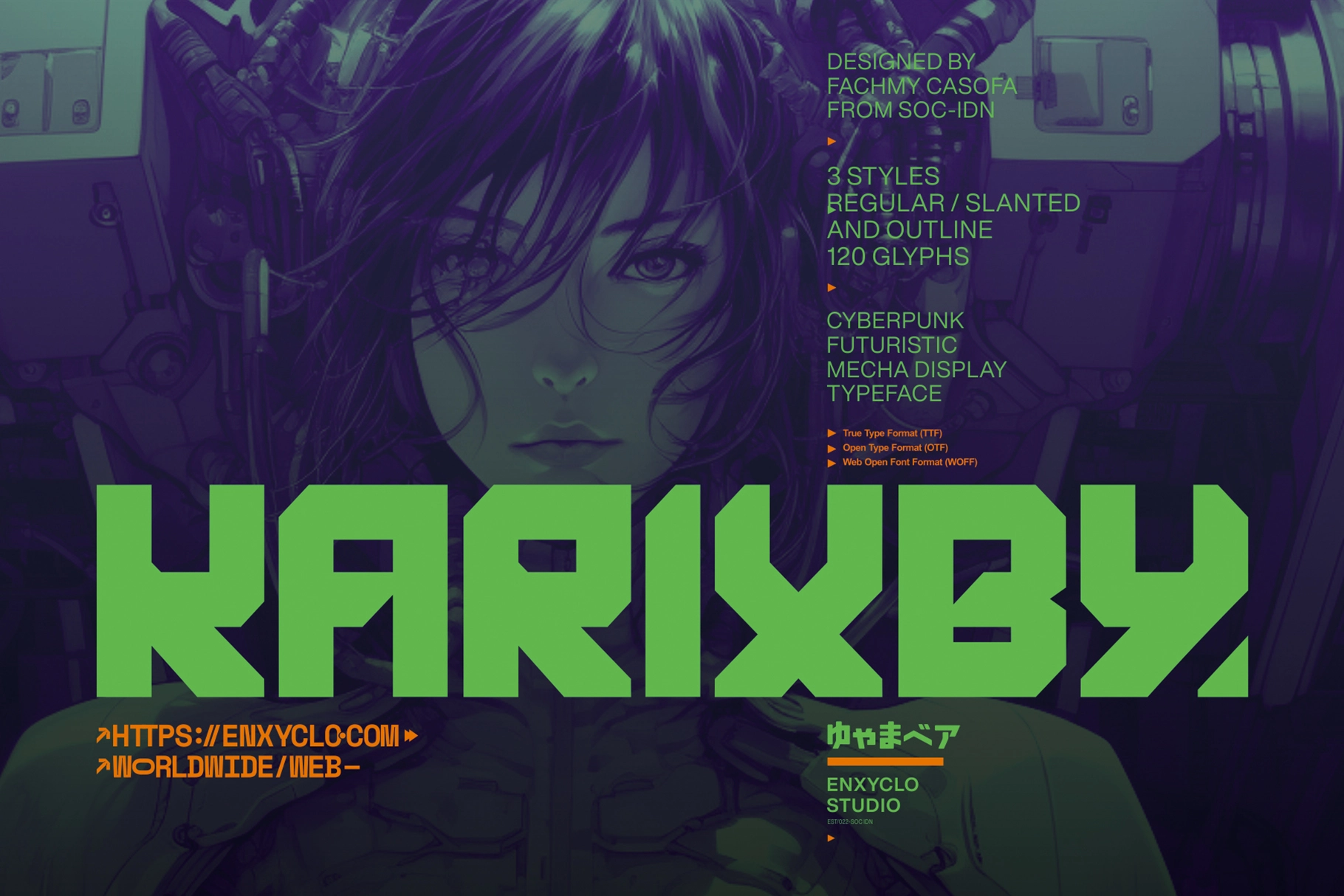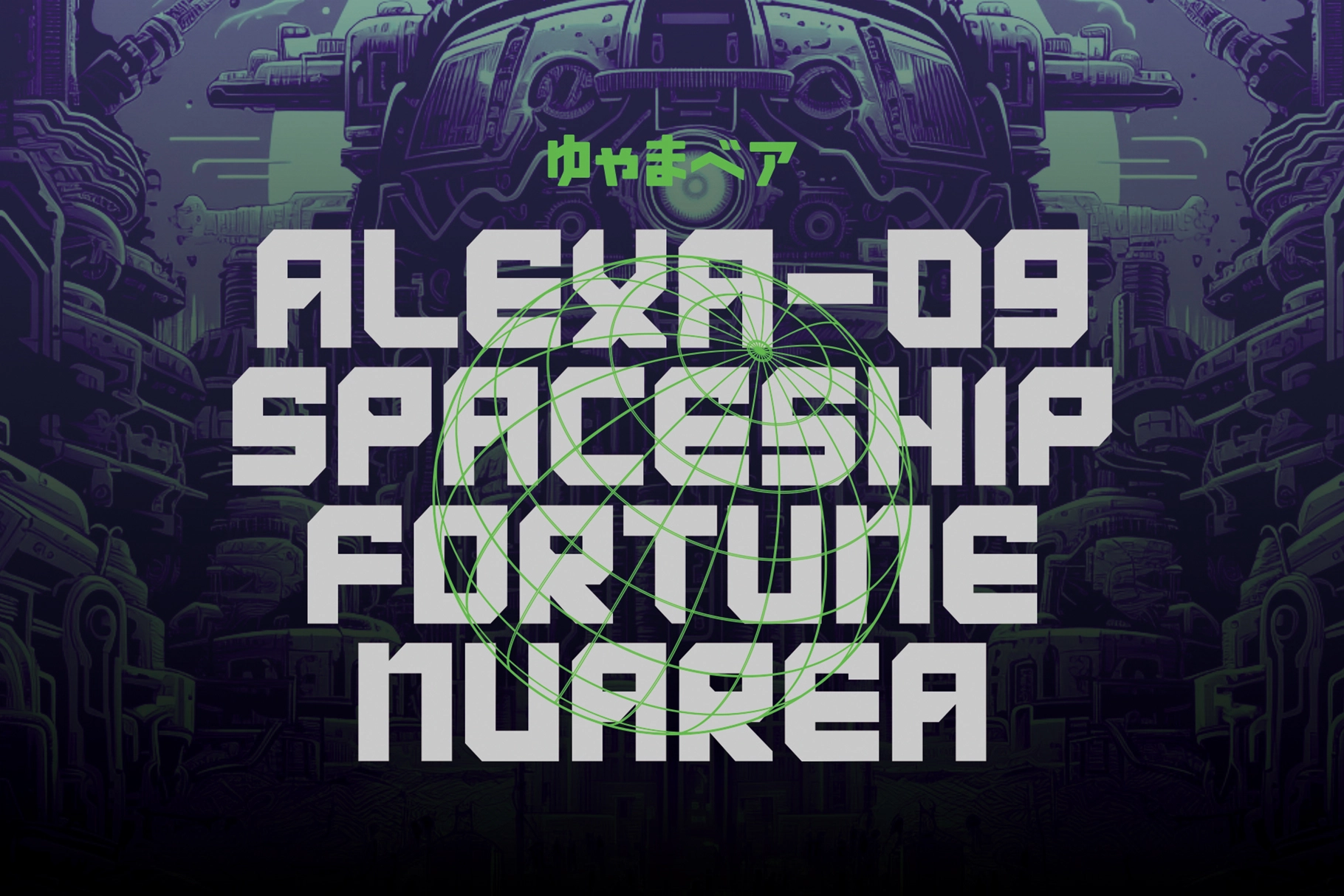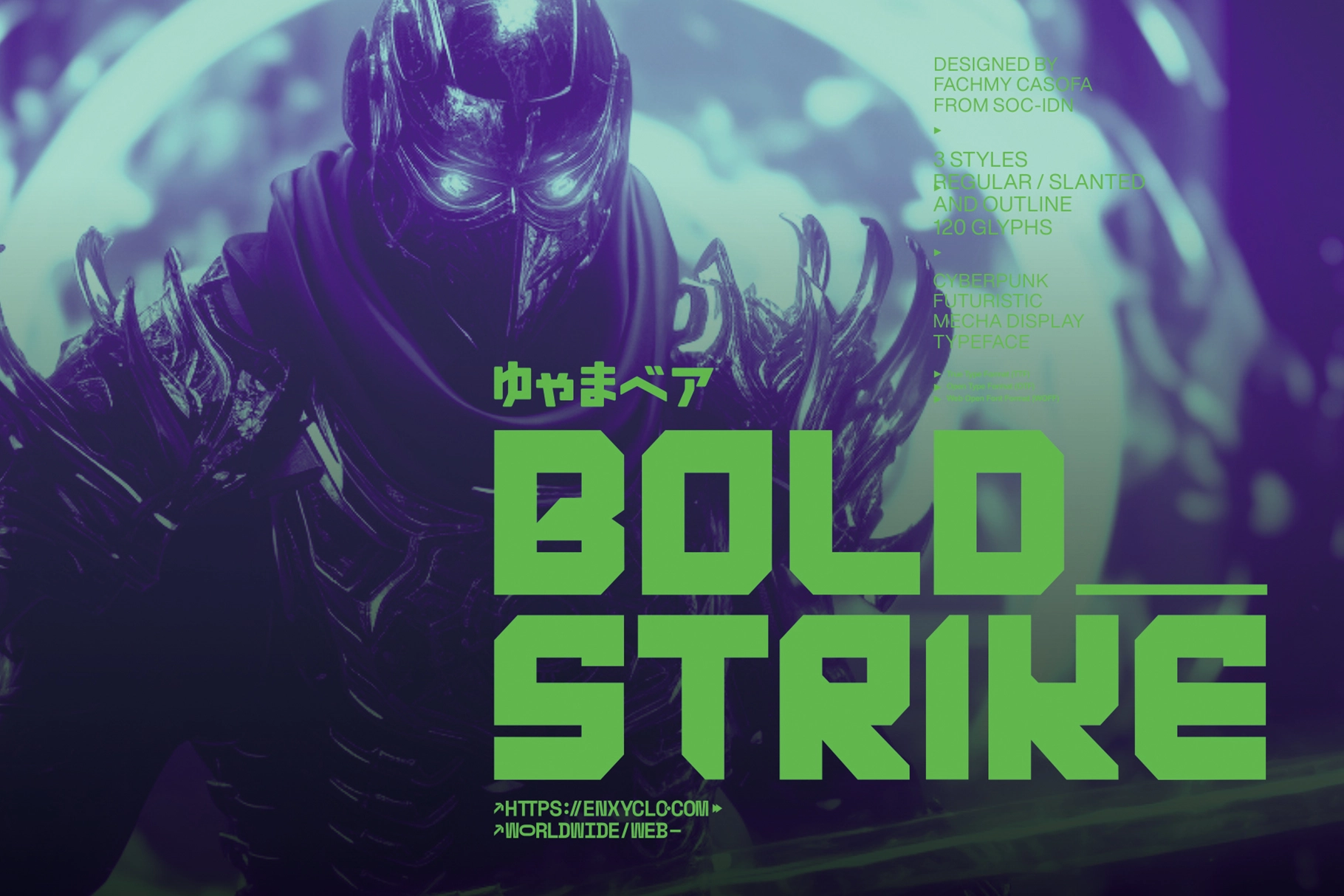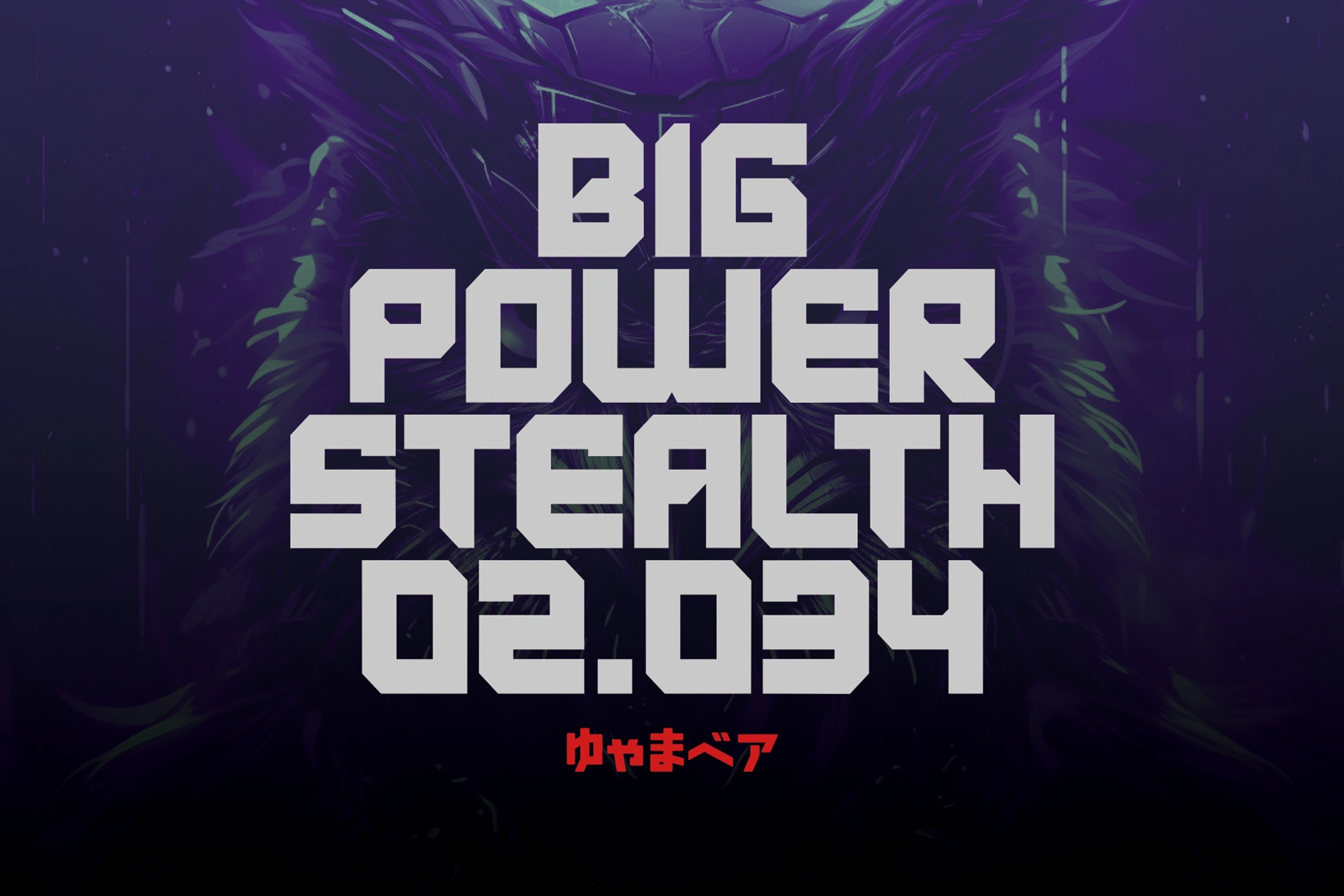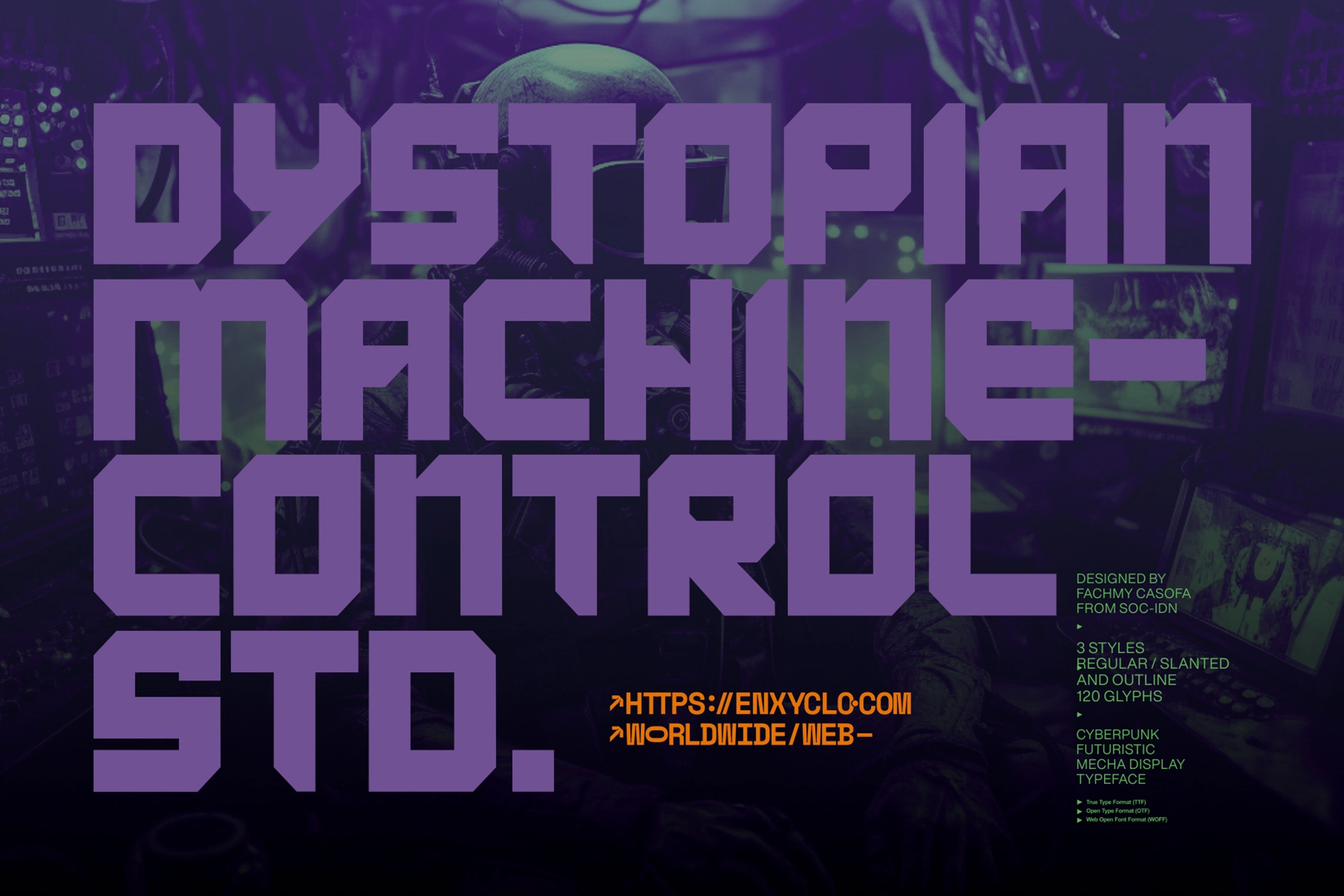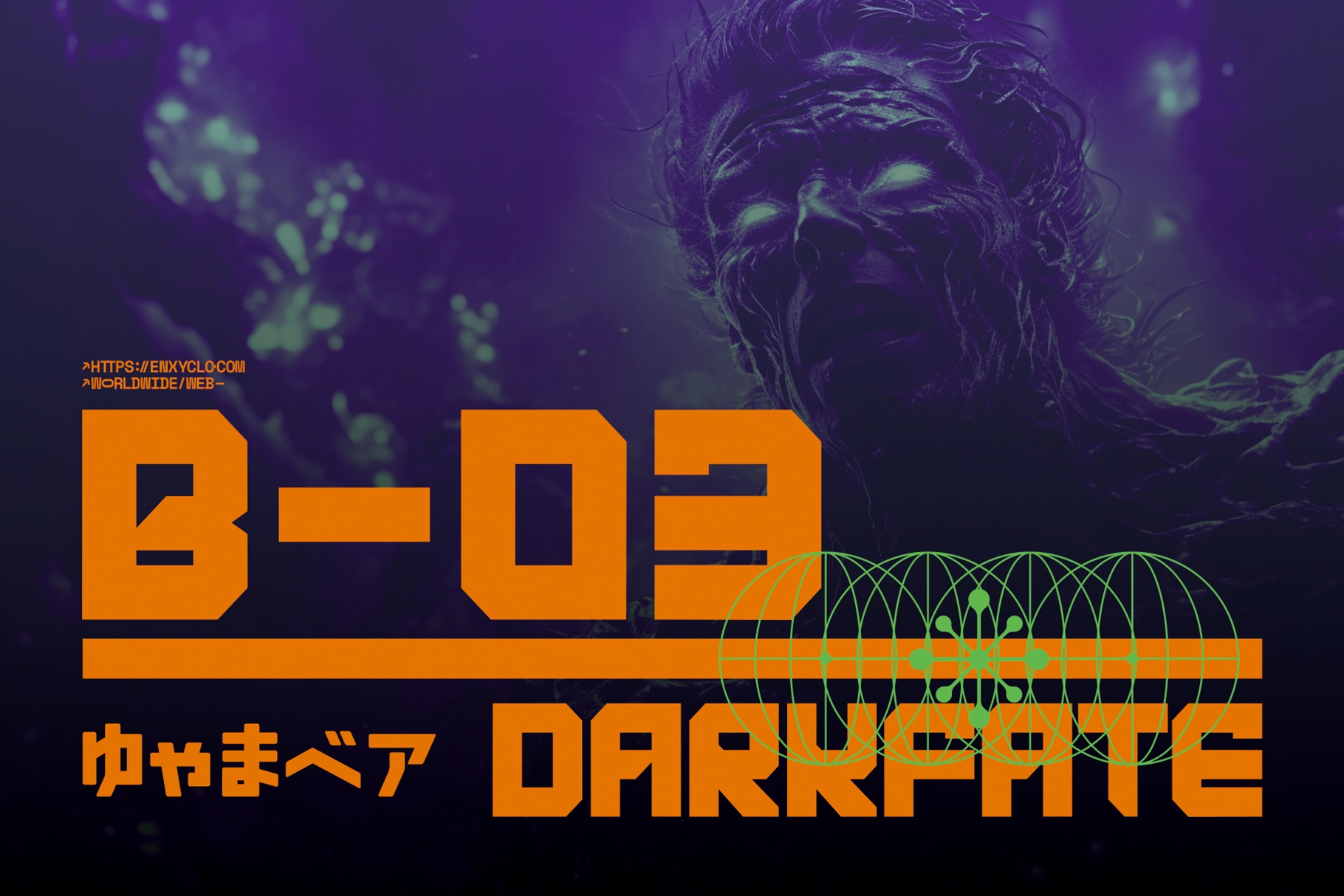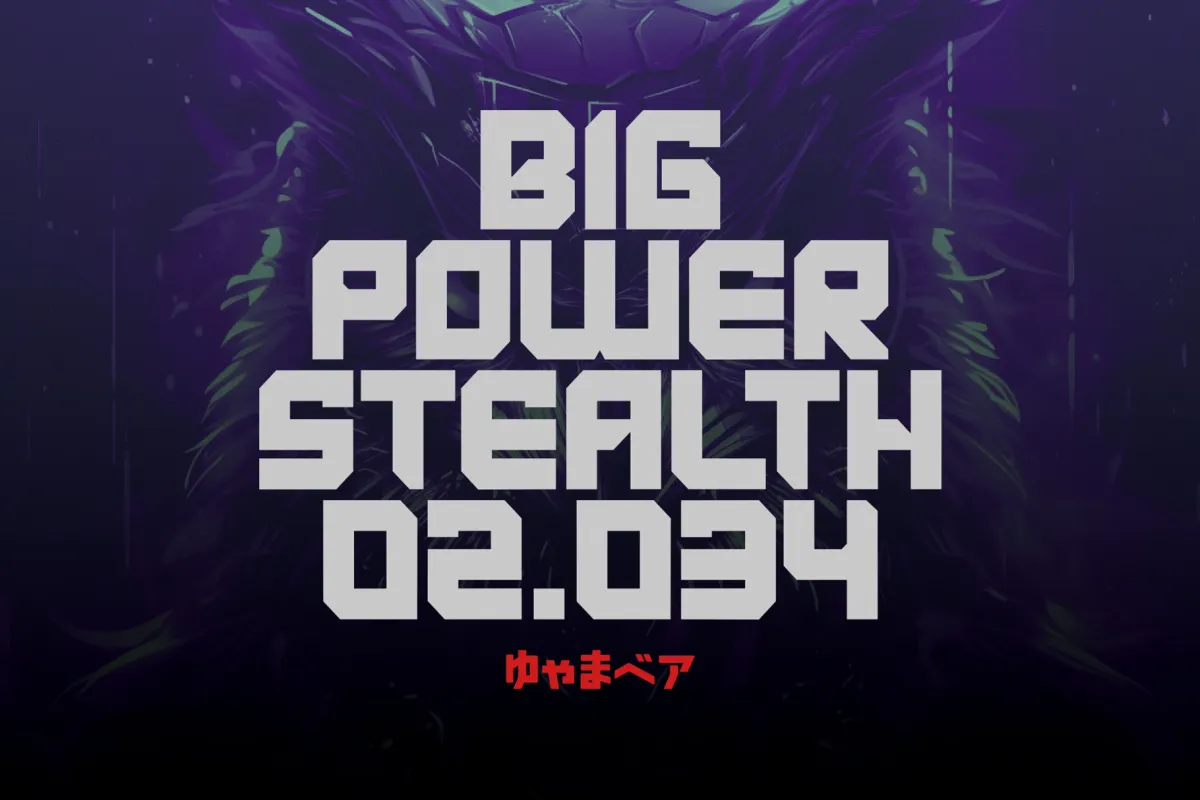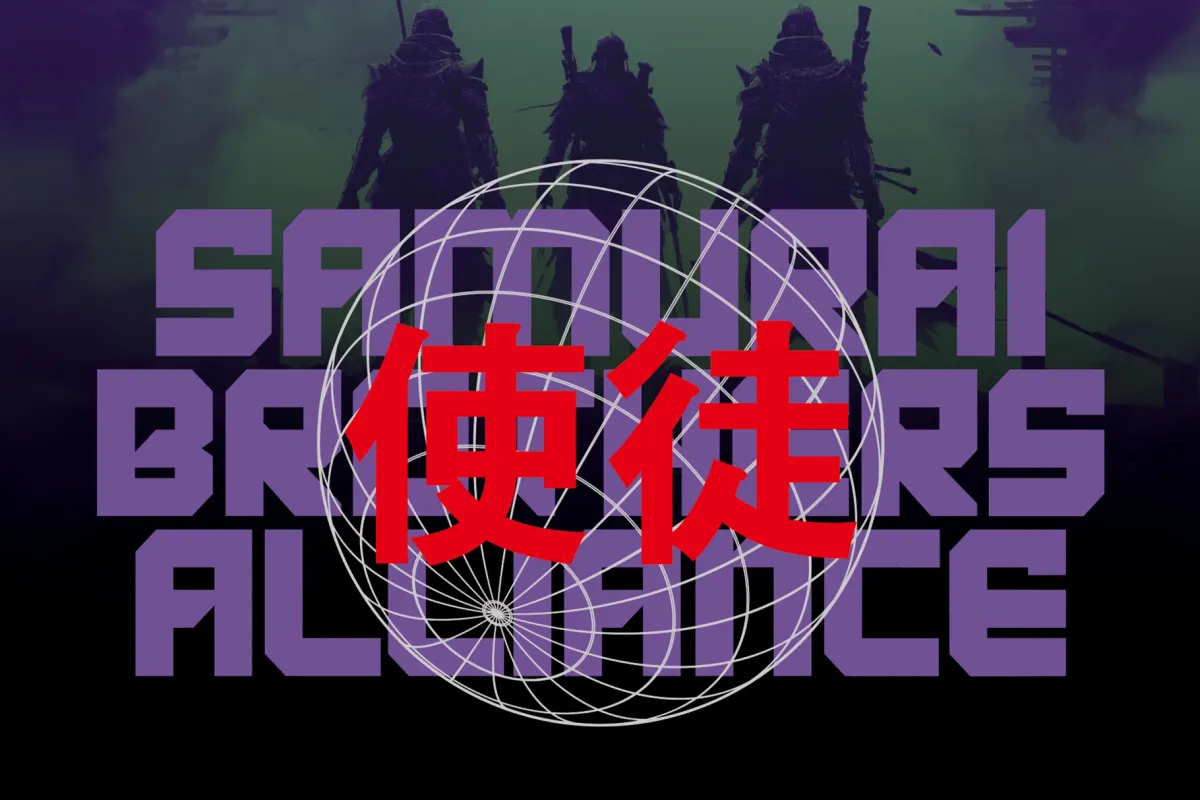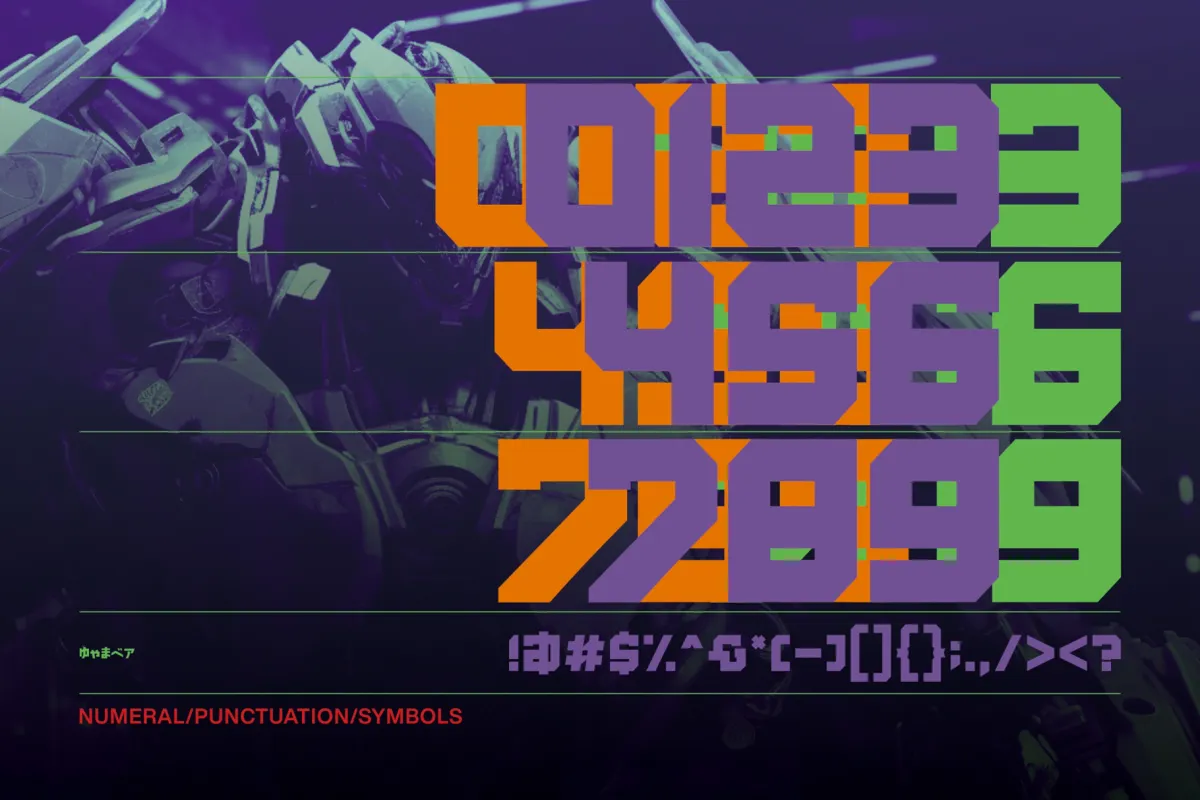
Karixby - Futuristic Tech Display Font
Karixby - Futuristic Tech Display Font designed to bring a high-tech, cyber-inspired edge to your visuals. With its sharp geometry, digital aesthetics, and strong structure, this font delivers a powerful and modern presence that instantly enhances any design.
Built for impact, Karixby captures the essence of sci-fi, gaming, and advanced technology. Its clean yet aggressive forms make it perfect for headlines and branding that need to feel innovative, energetic, and forward-thinking.
Whether you're creating esports graphics, tech branding, posters, or digital content, Karixby ensures your design stands out with a sleek futuristic identity.
- 3 Styles: Regular, Outline & Slant
- Uppercase Characters
- Numerals & Punctuation
- Contains 120 Glyphs for Each Style (Total 360 Glyphs)